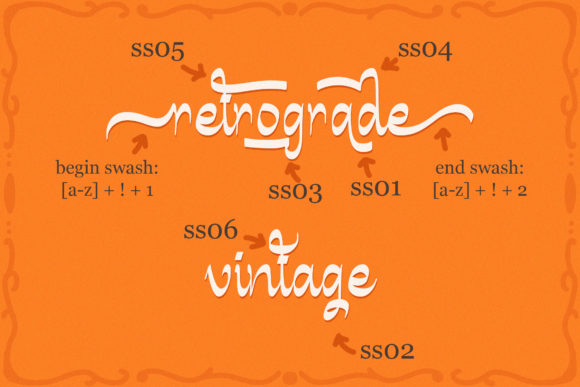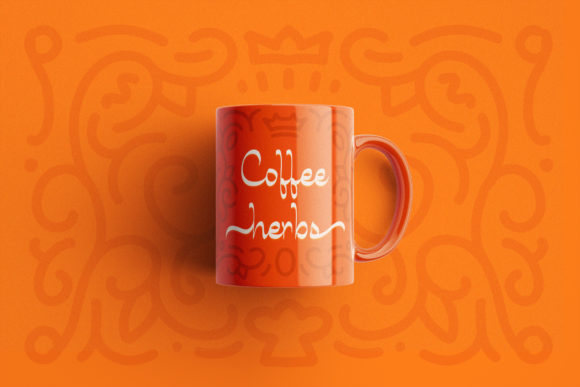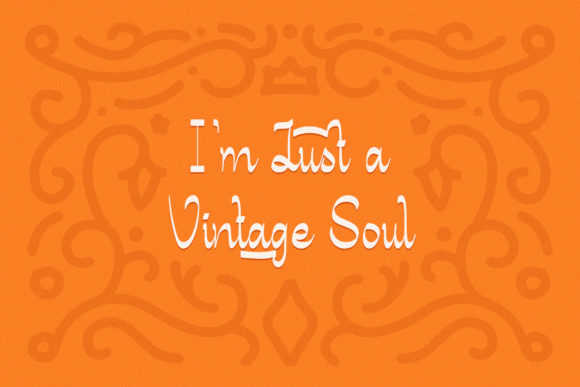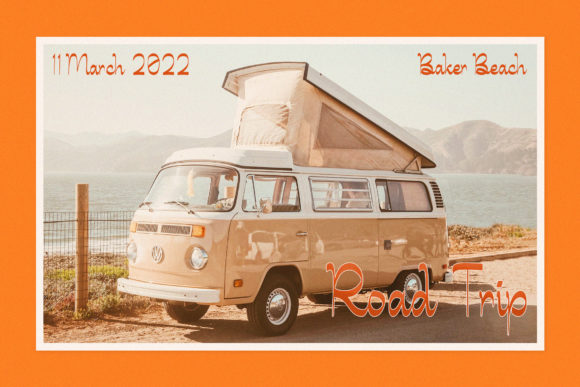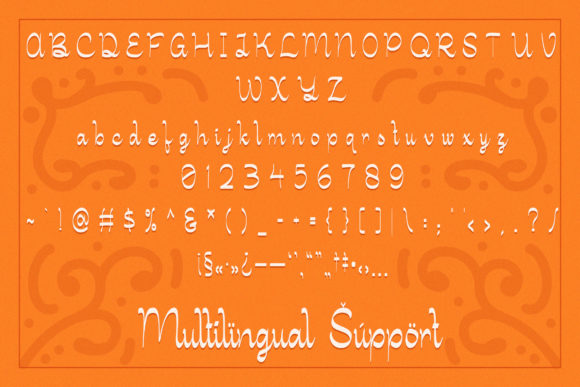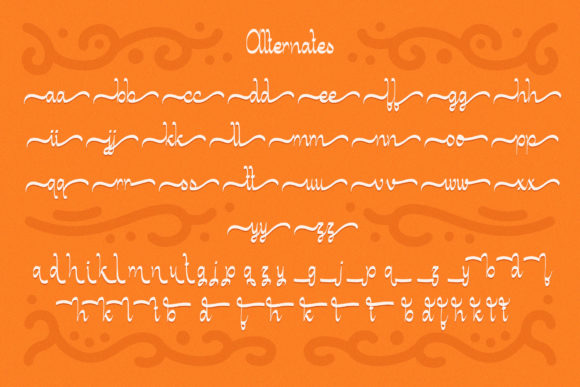
The Gradium Font: A Stunning Script Font for Creative Projects
I still remember the time I was working on a wedding invitation project, and my client asked for a font that was both elegant and modern. I scoured the internet, tried countless fonts, but nothing seemed to fit the bill. That was until I stumbled upon the Gradium font. It’s an incredibly beautiful paint brushed script font that has a cursive, stylish, and modern look that’s perfect for logos, branding, invitations, stationery, wedding designs, social media posts, and much more!
An Honest Review of Gradium Font
What I Love About Gradium Font
- ✨ Unique and eye-catching design: Gradium font has a distinctive paint brushed look that sets it apart from other script fonts.
- ✅ Highly versatile: It can be used for a wide range of projects, from logos and branding to invitations and social media posts.
- 💫 Modern and elegant: The font has a sophisticated and modern look that’s perfect for designs that require a touch of elegance.
- 🎨 Great for creative projects: Gradium font is ideal for designers, crafters, and creative hobbyists who want to add a personal touch to their projects.
While Gradium font is an amazing font, there are a few quirks to be aware of:
- 🤔 Limited use for body text: Due to its script nature, Gradium font may not be the best choice for long blocks of body text.
- ⚠️ Requires careful kerning: As with any script font, kerning can be a bit tricky, and some manual adjustments may be needed to achieve the desired look.
- Experiment with the font’s OpenType features, such as glyphs and stylistic alternates, to add more personality to your design.
Gradium font was designed by a team of talented typographers who wanted to create a unique and elegant script font. Inspired by the beauty of hand-painted signs and the sophistication of modern typography, Gradium font was born. The design team spent countless hours perfecting the font’s curves, strokes, and details to create a truly stunning script font.
| Author | Katario Studio |
A: Gradium font is a beautiful paint brushed script font with a cursive, stylish, and modern look.
A: Gradium font can be used for a wide range of projects, including logos, branding, invitations, stationery, wedding designs, social media posts, and more.
A: Yes, Gradium font is relatively easy to use, especially for designers who are familiar with script fonts. However, some manual kerning and adjustments may be needed to achieve the desired look.